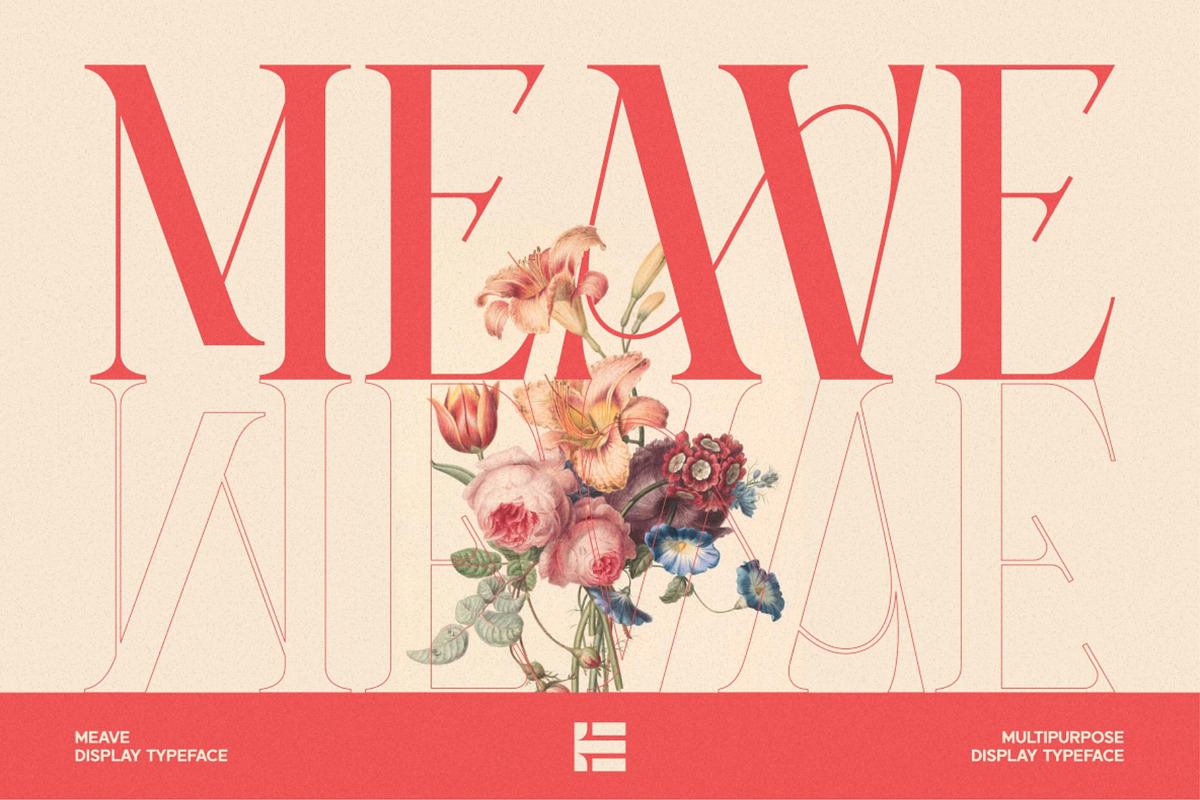
Meave Font Free Download is a modern and elegant serif typeface designed to bring sophistication and style to your designs. Featuring clean lines, balanced letterforms, and refined serifs, this font is perfect for creating upscale branding, editorial layouts, logos, invitations, and more.
Its versatile design allows it to be used for both creative and professional projects, ensuring clarity and elegance in any application. Whether you’re working on a luxury brand, a stylish magazine, or a modern website, Meave Font Free Download adds a touch of class to your typography.